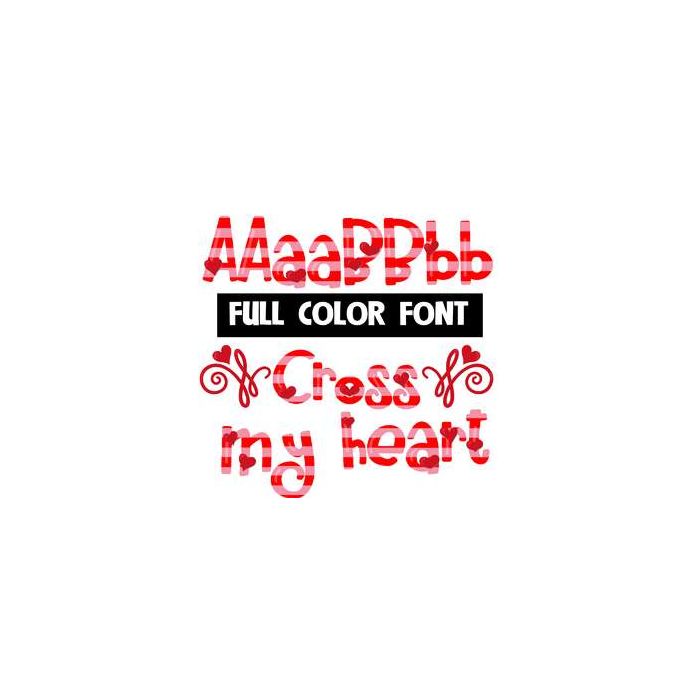
This full-color font features stripes and hearts. There is an additional alt upper and lowercase without hearts that you can access through your system's character map. This font works best for titles, displays, posters and more. Please note color fonts will show as black in non compatible programs. This font type is compatible with Silhouette Studio